Your wedding invitation sets the tone for the entire celebration — and nothing says romance, elegance, and timeless beauty quite like a stunning calligraphy font. The right typeface can transform a simple card into a breathtaking keepsake that your guests will treasure long before the ceremony begins.
We searched through thousands of fonts on Creative Fabrica to handpick the 15 best calligraphy fonts for wedding invitations. Every font in this collection was chosen for its graceful letterforms, romantic character, and versatility across different wedding styles — from classic black-tie affairs to modern garden parties and intimate elopements.
1. Angista Script Font
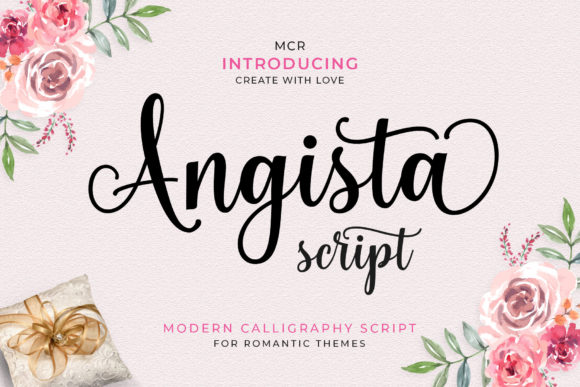
Angista Script is a modern calligraphy font designed specifically for romantic themes. Its graceful loops and elegant flow make it a natural choice for wedding invitations, save-the-dates, and ceremony programs. The beautifully connected letters create a sense of effortless sophistication that captures the emotion of your special day.
2. Cleopatra Font
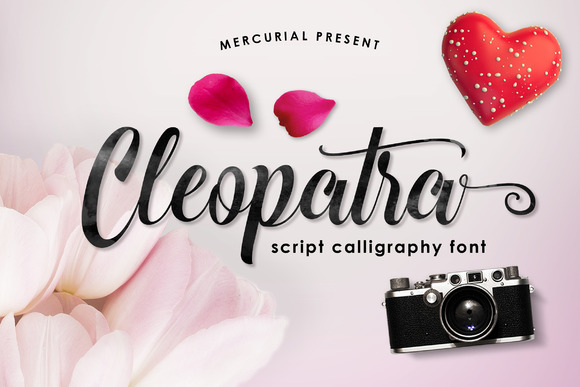
Cleopatra is a script calligraphy font with regal, sweeping strokes that evoke old-world glamour. Named after the legendary queen, this font brings drama and sophistication to formal wedding invitations. Its ornate letterforms and decorative swashes are perfect for couples who want their stationery to feel luxurious and unforgettable.
3. Elizabeth Font
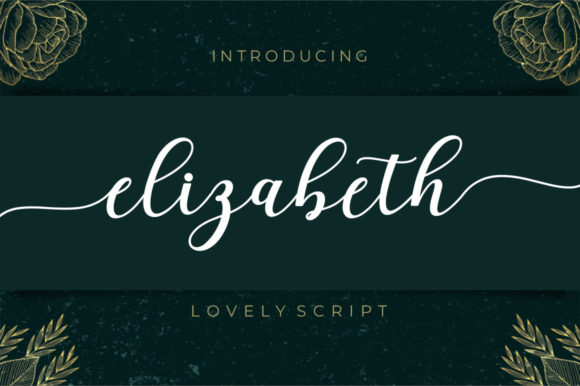
Elizabeth is a lovely script font with delicate, flowing letterforms that whisper romance. Its refined strokes and natural hand-lettered feel make it ideal for elegant wedding invitations, envelope addressing, and reception menus. This font strikes the perfect balance between formal calligraphy and approachable warmth.
4. Roselya Script Font
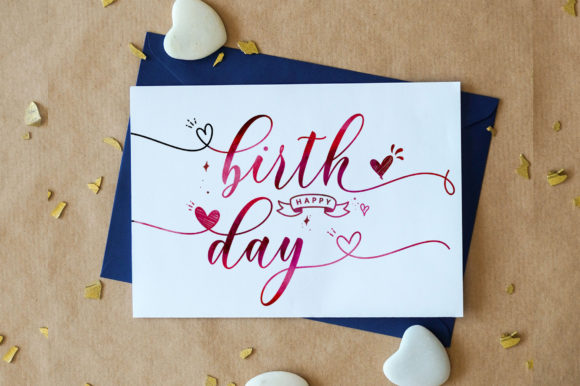
Roselya Script is a modern calligraphy font with a playful, hand-lettered flow that feels both polished and personal. Its smooth curves and natural strokes translate beautifully to wedding invitations, particularly for bohemian or garden-themed celebrations. The font’s organic rhythm gives every word a sense of handcrafted intimacy.
5. Yanty Janeta Font
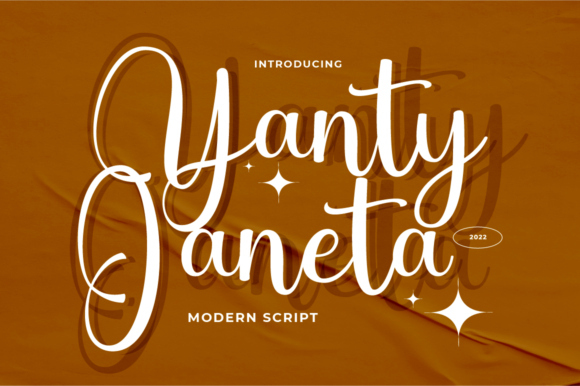
Yanty Janeta is a modern script font with confident, sweeping strokes and a contemporary calligraphic flair. It brings a fresh, stylish energy to wedding invitations while maintaining the elegance expected of formal stationery. The font works wonderfully for couples who want something that feels modern yet undeniably romantic.
6. Berlyant Font
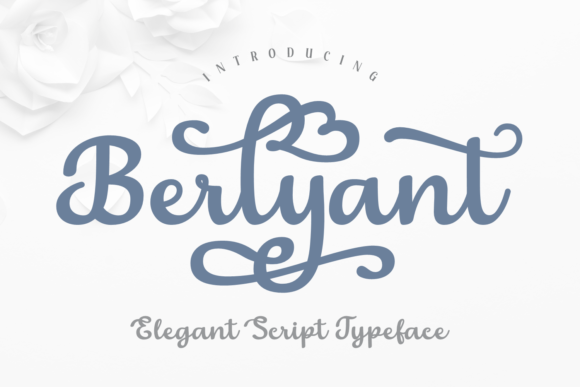
Berlyant features refined, connected letterforms with graceful entry and exit strokes that mimic real pen-and-ink calligraphy. It is an excellent choice for elegant wedding invitations, monogram designs, and RSVP cards. The font’s timeless personality ensures your stationery will look just as beautiful decades from now as it does today.
7. Emelyne Font
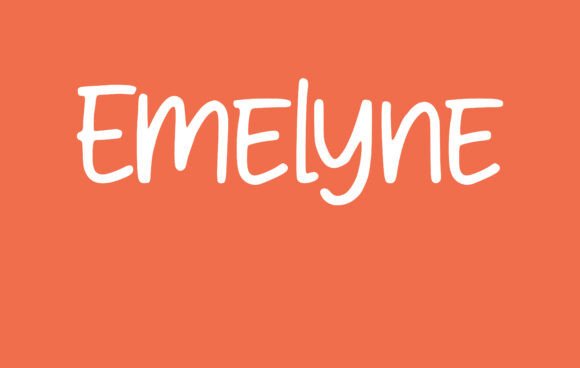
Emelyne is an elegant feminine font with long, swooping tails and refined letterforms that exude pure romance. It is a favorite among wedding designers for its ability to turn names and dates into works of art. Use it for invitation headers, place cards, and thank-you notes that leave a lasting impression.
8. Anabelle Script Font
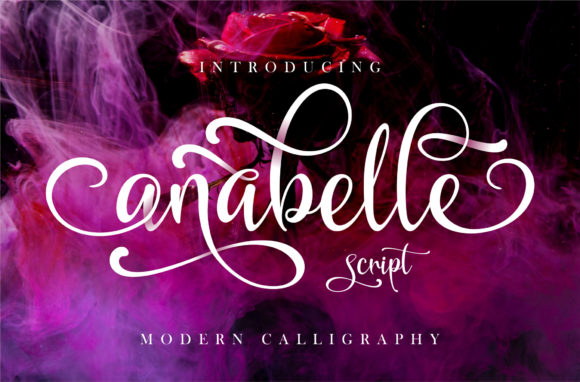
Anabelle Script offers timeless elegance with beautifully connected letters and decorative flourishes. Every character flows seamlessly into the next, creating the illusion of hand-written calligraphy done with a traditional pointed pen. It is a go-to font for bridal party gifts, monogram projects, and sophisticated wedding programs.
9. Rachelyn Font
Rachelyn is a sweet script typeface with a hand-lettered personality that radiates warmth and charm. Its gentle curves and relaxed baseline give wedding invitations a personal, heartfelt quality — as if every invitation were addressed by hand. This font is a beautiful choice for rustic, vintage, or intimate wedding themes.
10. Anastasia Font
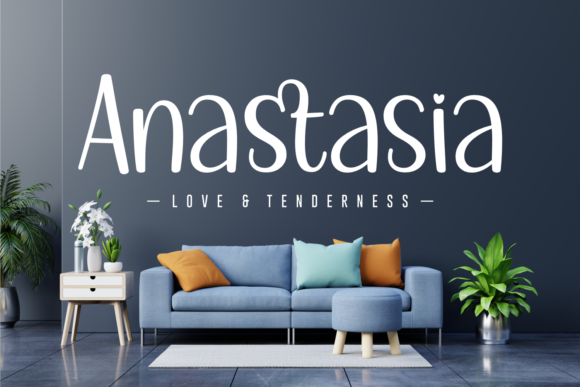
Anastasia is a love-and-tenderness script font with a soft, romantic aura that is tailor-made for wedding stationery. Its graceful curves and delicate hairlines bring a fairy-tale quality to every line of text. Whether used for the couple’s names on the invitation front or a heartfelt quote inside, Anastasia creates a sense of story and emotion.
11. Callifornia Font
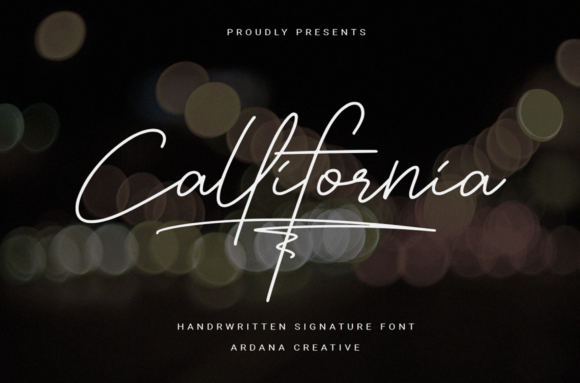
Callifornia is a handwritten signature font that blends casual confidence with understated elegance. It is ideal for modern couples who want their wedding invitations to feel chic and effortless rather than overly formal. The font’s natural, free-flowing strokes add a contemporary touch to save-the-date cards, reception signage, and table numbers.
12. Kimberlyn Font